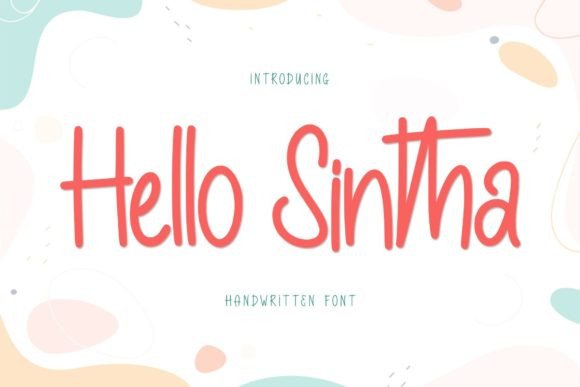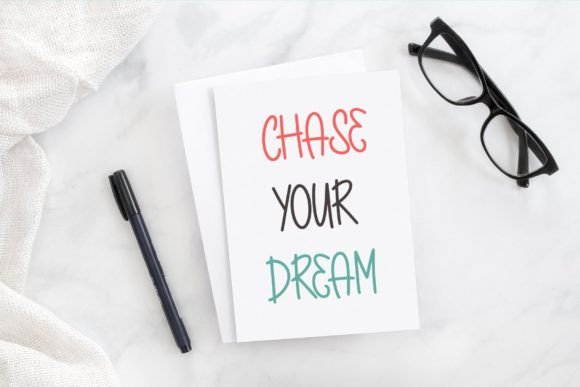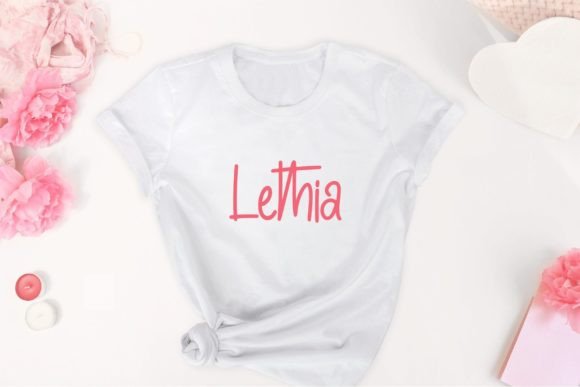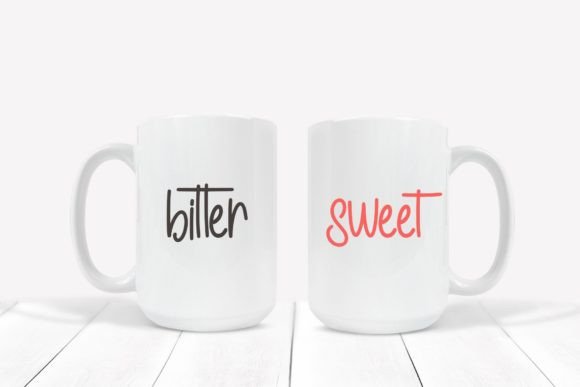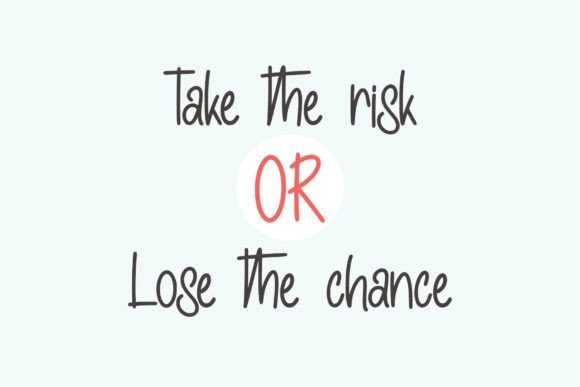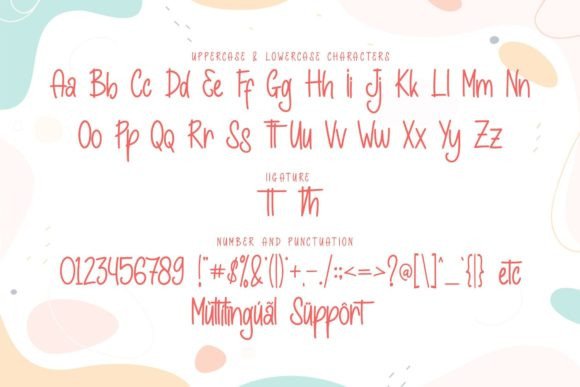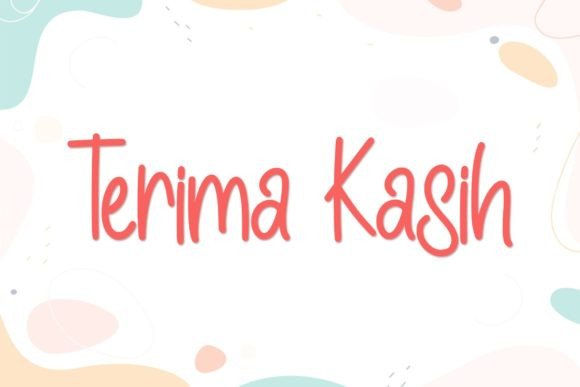
Hello Sintha Font
Hello Sintha is a delightful and playful handwritten font that radiates a sense of fun and friendliness. Its whimsical charm makes it a perfect choice for a variety of creative projects. Whether you’re working on cartoon-related designs, children’s games, inspirational quotes, eye-catching titles, unique brand names, captivating book covers, vibrant posters, or any creation that needs a touch of joy, Hello Sintha is an excellent and versatile choice.
The font’s lively and friendly demeanor adds a cheerful vibe to your designs, making them visually appealing and engaging. Its playful strokes and casual style create a sense of approachability, making it ideal for projects aimed at children or those that require a touch of youthful energy.
Hello Sintha’s adaptability shines in various contexts. It brings a sense of fun to children’s books, games, and educational materials, enhancing the overall learning experience. In the realm of branding, it adds a unique personality to products and services, making them more memorable to customers. For quotes, titles, and posters, Hello Sintha injects positivity and joy, capturing the viewer’s attention and spreading happiness.
Embrace the playful spirit of Hello Sintha and let it bring life to your designs. Its fun and friendly nature make it a wonderful choice for projects that aim to evoke happiness and creativity. With Hello Sintha, your creations will resonate with a sense of joy, making them stand out and leave a lasting impression on your audience.